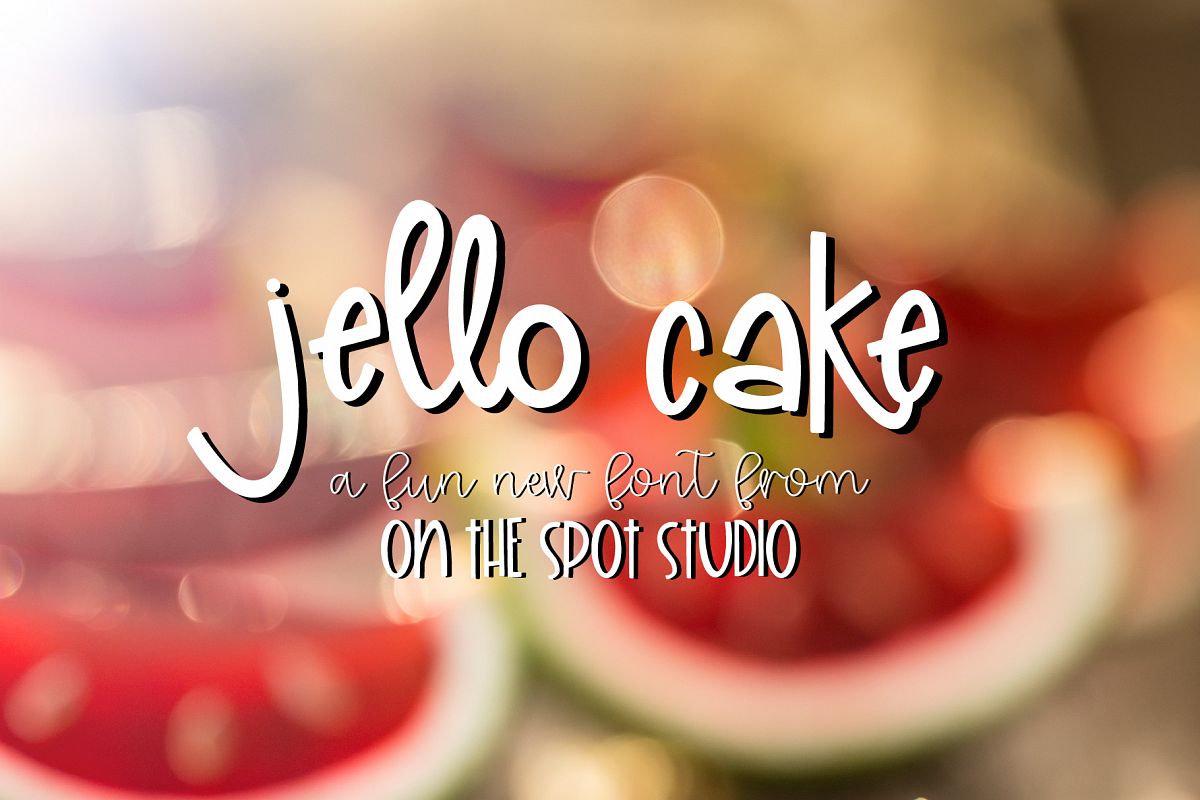
Jello Cake
Theres just something fun about a quirky print font! I love how this one turned out! Upper, lower, numbers, punctuation, accents + bonus ligatures all included. More images coming soon!